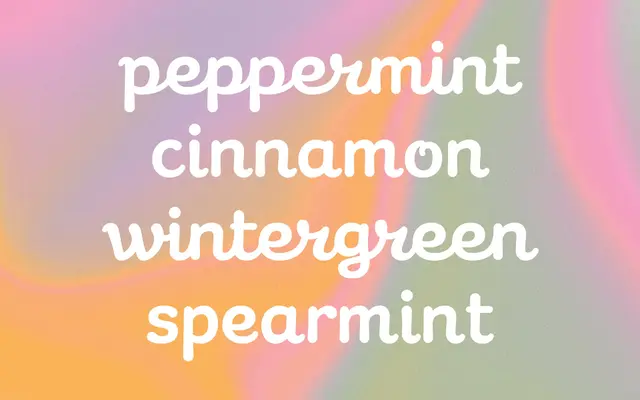
Cassiopeia
A two-weight display sans from Labor and Wait, named after the northern constellation, offered in Bold and Basic Bold cuts.
Available in Bold and Basic Bold, Cassiopeia is a display-weight sans built for headline and poster work. The character set covers Basic Latin, Latin-1 Supplement and Latin Extended-A, giving reasonable coverage across Western European languages. The foundry's specimen copy draws on the mythology and astronomy of the Cassiopeia constellation, lending the typeface a cosmic, somewhat editorial framing.
Cassiopeia appears in Bold and Basic Bold weights with no italic, positioned as a display face with a strong, structured character suited to headlines and large-scale use.